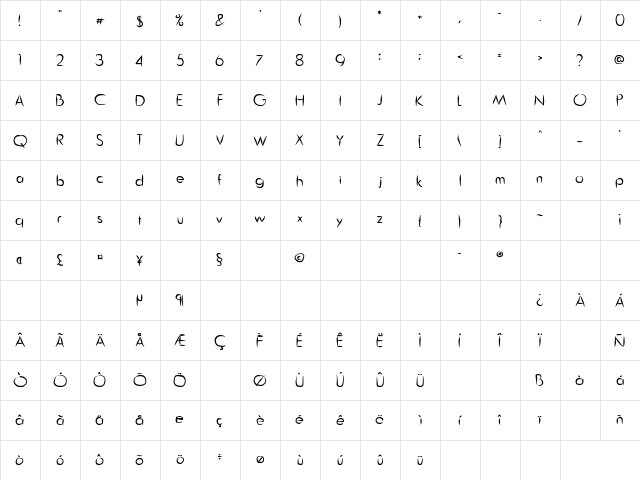
Guitar from Tree Regular
Design Context for Guitar from Tree Typeface
Guitar from Tree is a composed and adaptable typeface that performs quietly and consistently across a wide range of design contexts.